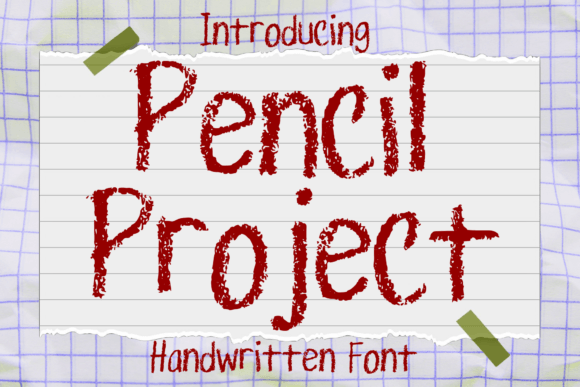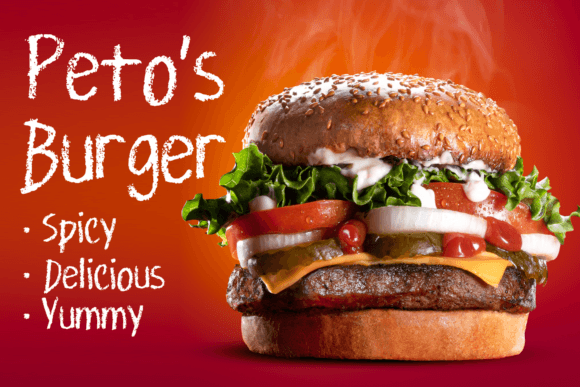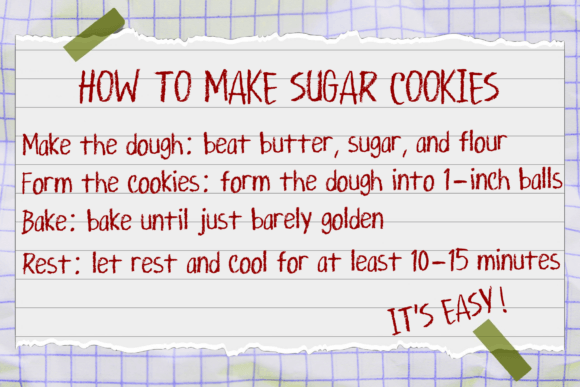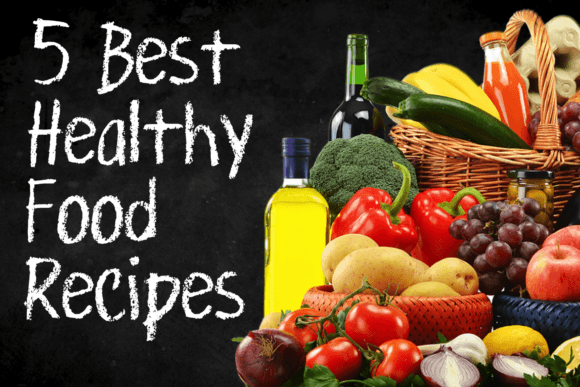
Pencil Project Font: A Fun Handwritten Font for Playful DIY Designs
About the Pencil Project Font
The wait is over! The incredible Pencil Project Font is now available for your design toolkit. Pencil Project is a fun handwritten font with pencil, graphite, crayon, or chalkboard texture that you can use it for anything ranging from t-shirts, book designs, packaging, and greeting cards to stickers and posters, or anything that needs a casual touch, it will be your perfect font to pick. Fall in love with its incredibly versatile style, and use it to create lovely designs!
Pencil Project Font’s playful, hand-drawn aesthetic makes it ideal for headlines, short text blocks on posters or packaging, and branding elements requiring a casual, approachable feel. It excels in projects aimed at a younger demographic or those emphasizing creativity and fun. However, its texture and irregularity make it unsuitable for body copy or UI elements where readability is paramount. Long paragraphs set in this typeface would be difficult to read.
This font pairs well with clean sans-serif fonts like Open Sans or Lato for a balanced contrast, or a more geometric sans-serif like Montserrat for a modern feel. For a sophisticated touch, consider pairing it with a classic serif like Garamond or a delicate script font like Great Vibes, using the script sparingly as an accent.
Pencil Project’s core personality is undeniably friendly and approachable; its slightly imperfect forms communicate warmth and authenticity. Brands focused on children’s products, crafts, artisanal goods, or cafes would find this font a strong visual asset.
Pencil Project Font Usage Examples
Pencil Project Font Example